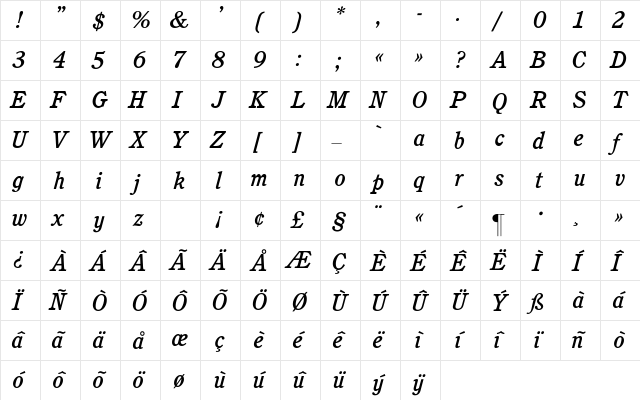
Cushing-MediumItalic Regular Font Preview
Cushing-MediumItalic Regular
Design Context for Cushing-MediumItalic Typeface
Cushing-MediumItalic offers clean, dependable letterforms without strong stylistic allegiance, making it a practical choice for designers who need flexibility. Its italic angle brings a sense of urgency and motion to the letterforms.